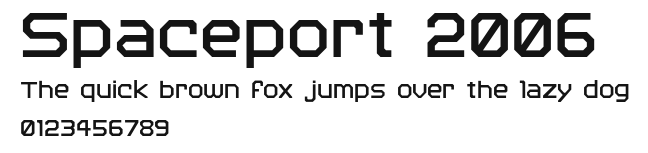
Spaceport 2006 Preview
• Font Name: Spaceport 2006
• Full Font Name: Spaceport
• PostScript Name: Spaceport
• Manufacturer: Tiago Amora e Eduardo Novais
About Spaceport 2006.otf
Spaceport 2006.otf is a modern, elegant sans-serif font designed for ultimate readability and visual harmony. Perfect for branding, headlines, web design, and print materials.